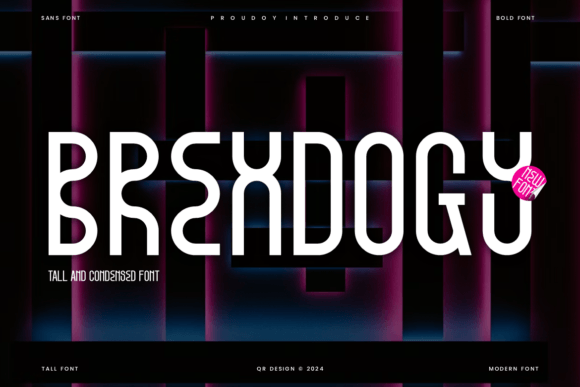
The Ultimate Display Font: A Deep Dive into Brexdogy
I’ll never forget the moment I stumbled upon Brexdogy – Tall Font while working on a branding project for a sports apparel client. I was on a tight deadline, and my design just wasn’t coming together. The font I was using was too bland, and I needed something bold and authentic to capture the essence of the brand. That’s when I discovered Brexdogy, and it instantly elevated my design to the next level. In this article, I’ll share my experience with Brexdogy, its features, and how to make the most of this incredible font.
An Honest Review of Brexdogy
What I Love About Brexdogy ✨
- ✅ Bold and Authentic: Brexdogy is a statement font that demands attention. Its tall and bold structure makes it perfect for display purposes, such as logos, headlines, and titles.
- ✅ Versatile: This font is suitable for a wide range of contexts, from sports and fitness to fashion and lifestyle.
- ✅ Ease of Use: Brexdogy is easy to read and works well in both digital and print formats.
- ⚠️ Limited Use Cases: Due to its bold nature, Brexdogy might not be the best choice for body text or long-form content.
- ⚠️ Glyph Limitations: While Brexdogy has a range of glyphs and OpenType features, it might not have every special character or symbol you need.
The Story Behind Brexdogy
Brexdogy was designed with the goal of creating a bold and authentic display font that could be used across various industries. The designer aimed to craft a font that would stand out in a crowded market while still being easy to read and versatile. The result is a font that has become a favorite among designers and crafters alike.
| Font Name | Brexdogy Font |
| What is Brexdogy best used for? | Brexdogy is best used for display purposes, such as logos, headlines, titles, and branding projects. |
| Is Brexdogy suitable for body text? | No, Brexdogy is not recommended for body text due to its bold nature. It’s better suited for short-form content. |
| Does Brexdogy support OpenType features? | Yes, Brexdogy supports OpenType features, including glyphs and stylistic alternates. |